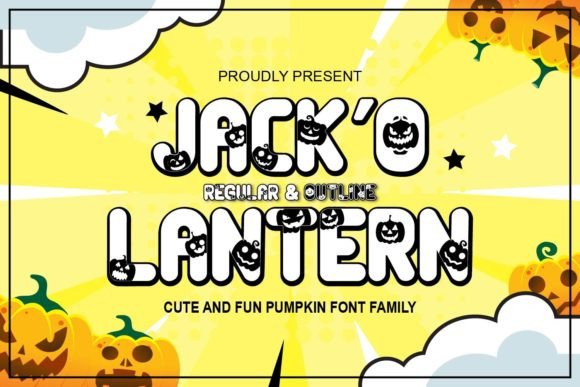
Jack O Latern: A Spooky Yet Adorable Display Font
Jack O Latern is more than just a fontâit's a character. With its playful yet eerie aesthetic, this display font captures the essence of Halloween while maintaining a charming, approachable vibe. Whether you're designing for a seasonal campaign or a creative project with a whimsical twist, Jack O Latern brings a unique energy that sets your work apart.
Visually, Jack O Latern blends the sharpness of a serif font with the softness of a handwritten style. The letterforms have subtle imperfections that give them a handcrafted feel, making them ideal for projects that need a personal touch. Its bold strokes and slightly irregular shapes evoke a sense of fun, while the clean lines ensure it doesnât veer into chaos. This balance makes it versatile enough for both serious and lighthearted applications.
Where Jack O Latern Shines
Jack O Latern excels in projects that benefit from a strong visual identity with a hint of personality. Itâs perfect for logo design, especially for brands targeting a youthful or niche audience. Think of a boutique candy shop, a themed event, or a children's book coverâthis font adds an instant sense of fun without sacrificing clarity.
In editorial design, Jack O Latern can be used for headlines, titles, or section dividers to create a visually engaging layout. When paired with a clean sans serif, it can add contrast and depth to magazine spreads or blog posts. For packaging design, it offers a fresh alternative to traditional Halloween fonts, giving products a modern yet nostalgic look.
On the digital side, Jack O Latern works well for social media graphics, banners, and web headers. Its boldness ensures it stands out on screens, while its readability at larger sizes makes it suitable for eye-catching calls to action or promotional content. In print, itâs ideal for posters, flyers, and invitations where a festive yet professional tone is needed.
How Jack O Latern Influences Design Decisions
When choosing a font like Jack O Latern, itâs important to consider how it affects the overall message and perception of your work. Its playful nature can make a brand feel more approachable, but it also needs to align with the intended audience. For example, using it in a corporate setting might feel out of place, whereas in a creative agency or a Halloween-themed business, it can reinforce the brandâs personality.
Readability is a key factor when working with display fonts. While Jack O Latern is highly legible at larger sizes, itâs not recommended for body text. Instead, use it as a focal point to draw attention and guide the viewerâs eye through the design. Pairing it with a complementary typefaceâlike a simple sans serifâcan help maintain visual hierarchy and prevent the design from feeling cluttered.
For branding purposes, consistency is crucial. If Jack O Latern becomes part of your brand identity, ensure itâs used uniformly across all materials. This helps build recognition and reinforces the brandâs visual language. However, avoid overusing it; instead, reserve it for key elements such as logos, headings, and promotional content.
Practical Tips for Using Jack O Latern
If youâre considering Jack O Latern for a project, start by evaluating how it fits with your existing design assets. Test it in different sizes and contexts to see how it performs. For instance, try using it in a headline versus a tagline to understand its impact on the overall composition.
Font pairing is another important consideration. Since Jack O Latern has a distinct personality, it pairs best with simpler typefaces that donât compete. A clean, modern sans serif like Roboto or Open Sans can provide a nice contrast, allowing Jack O Latern to take center stage without overwhelming the design.
Finally, consider the emotional response the font evokes. Jack O Latern isnât just about aestheticsâitâs about storytelling. Use it to convey a sense of fun, nostalgia, or mystery, depending on the projectâs goals. Whether you're designing for a holiday event or a creative portfolio, this font can help tell your story in a memorable way.